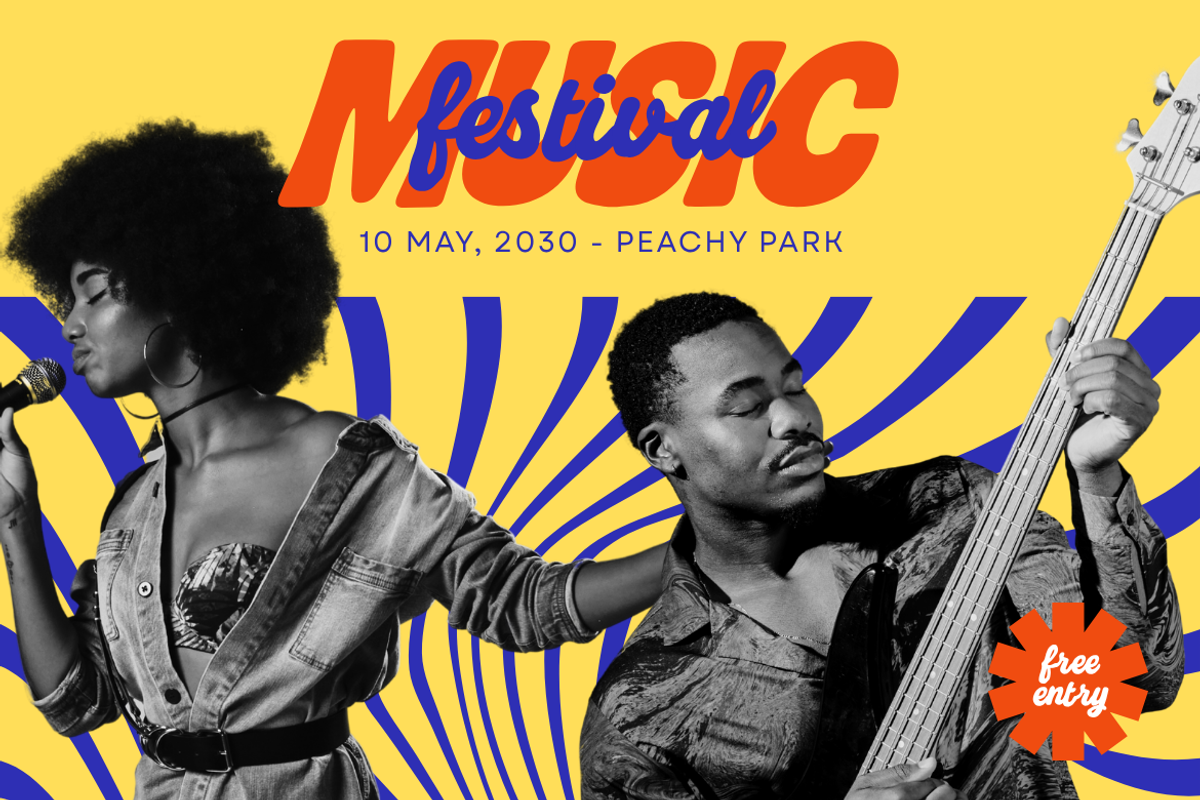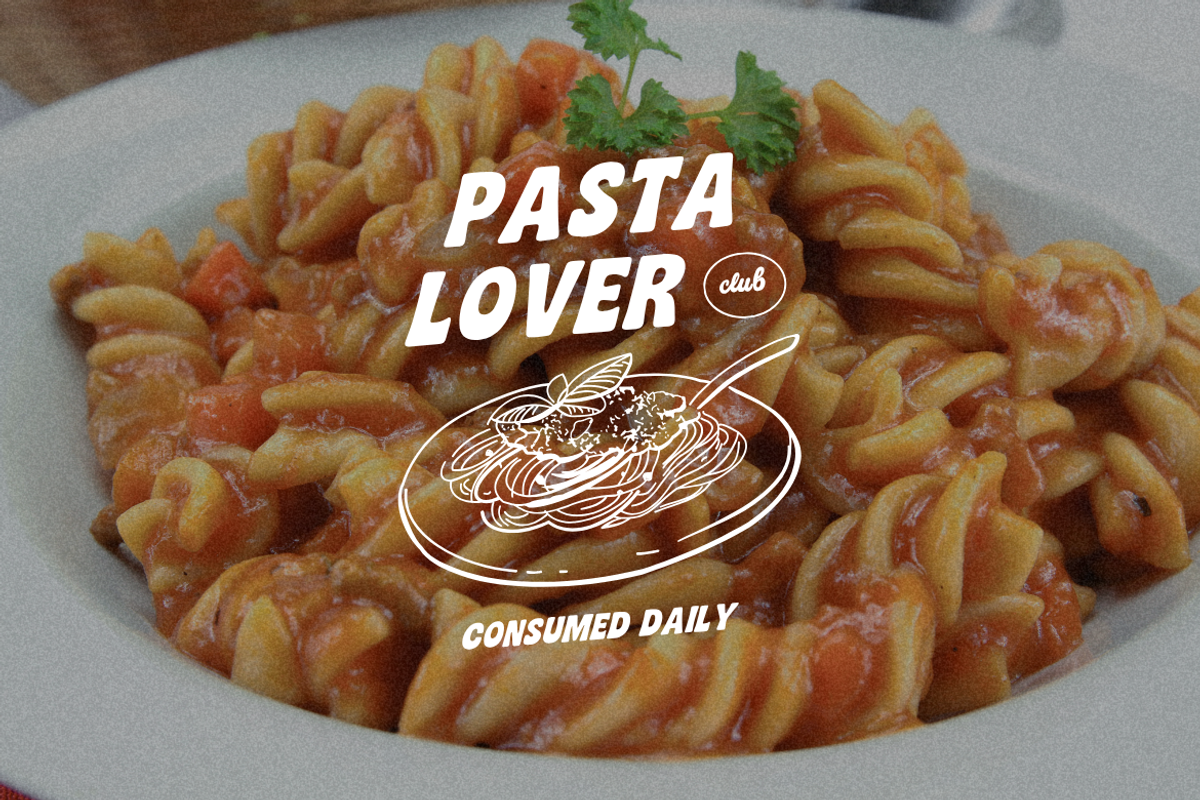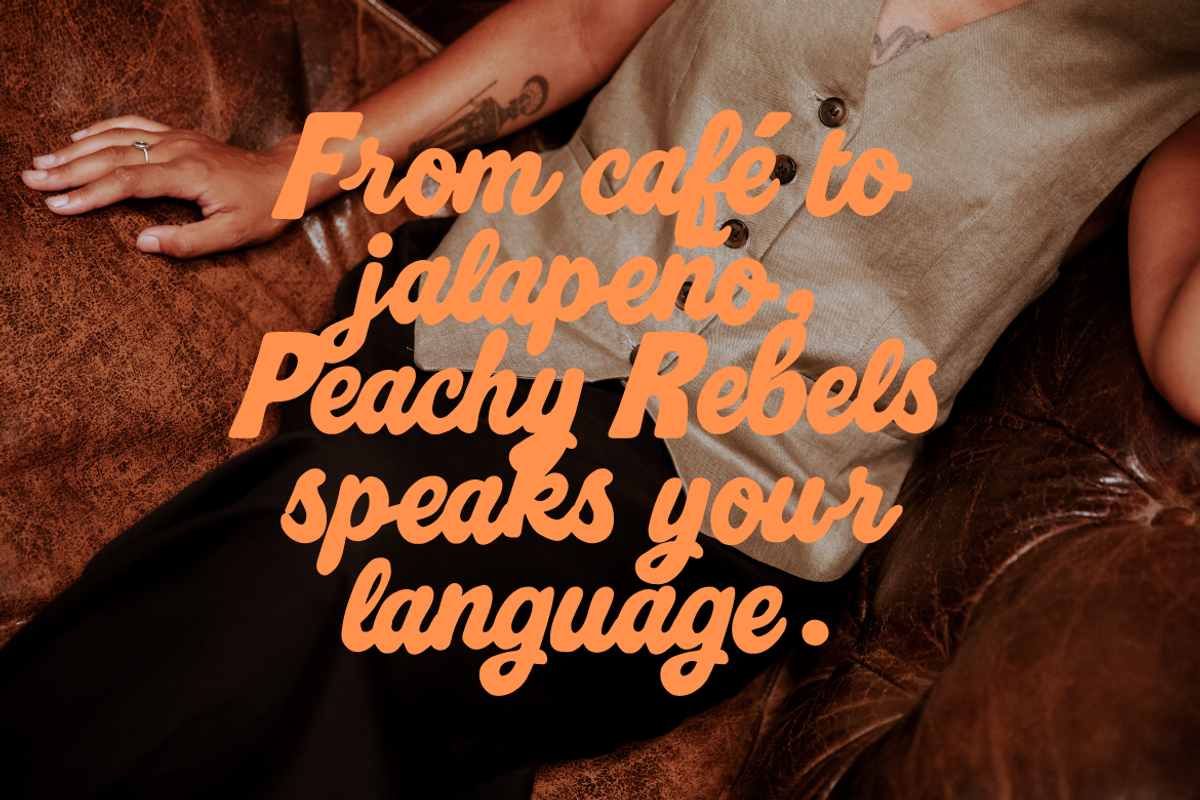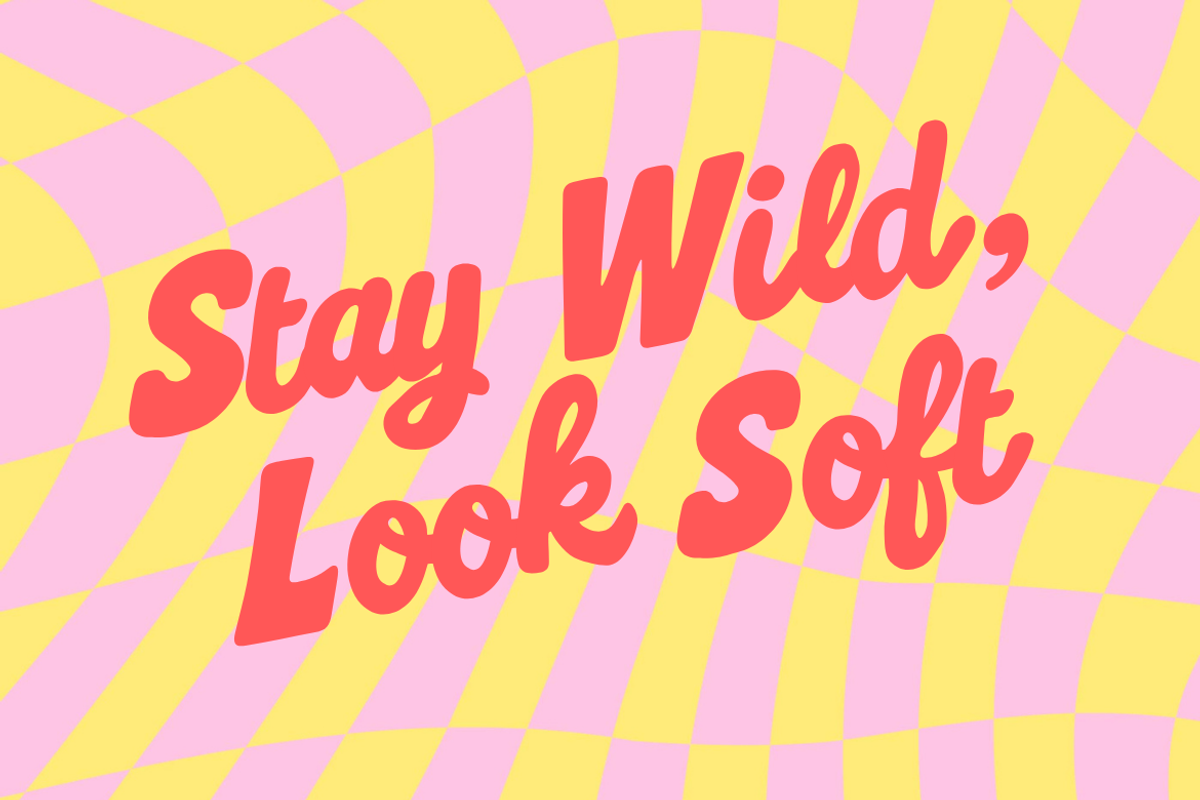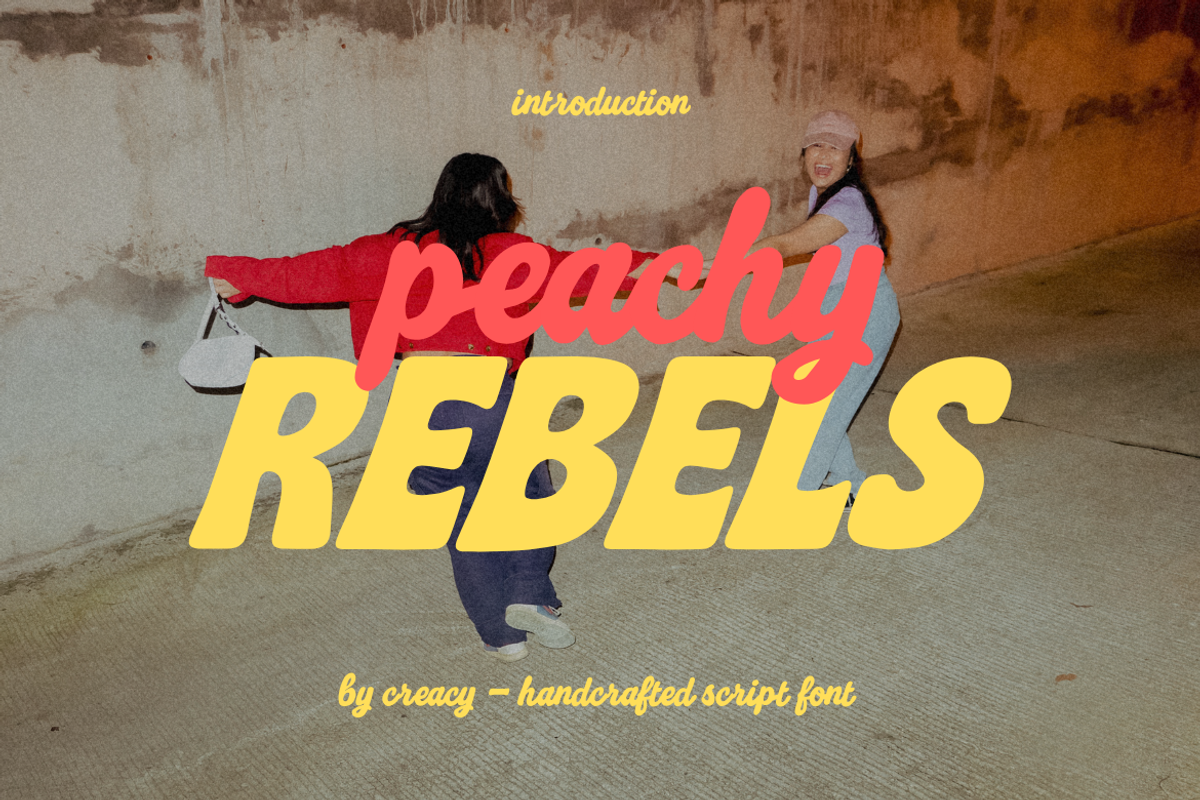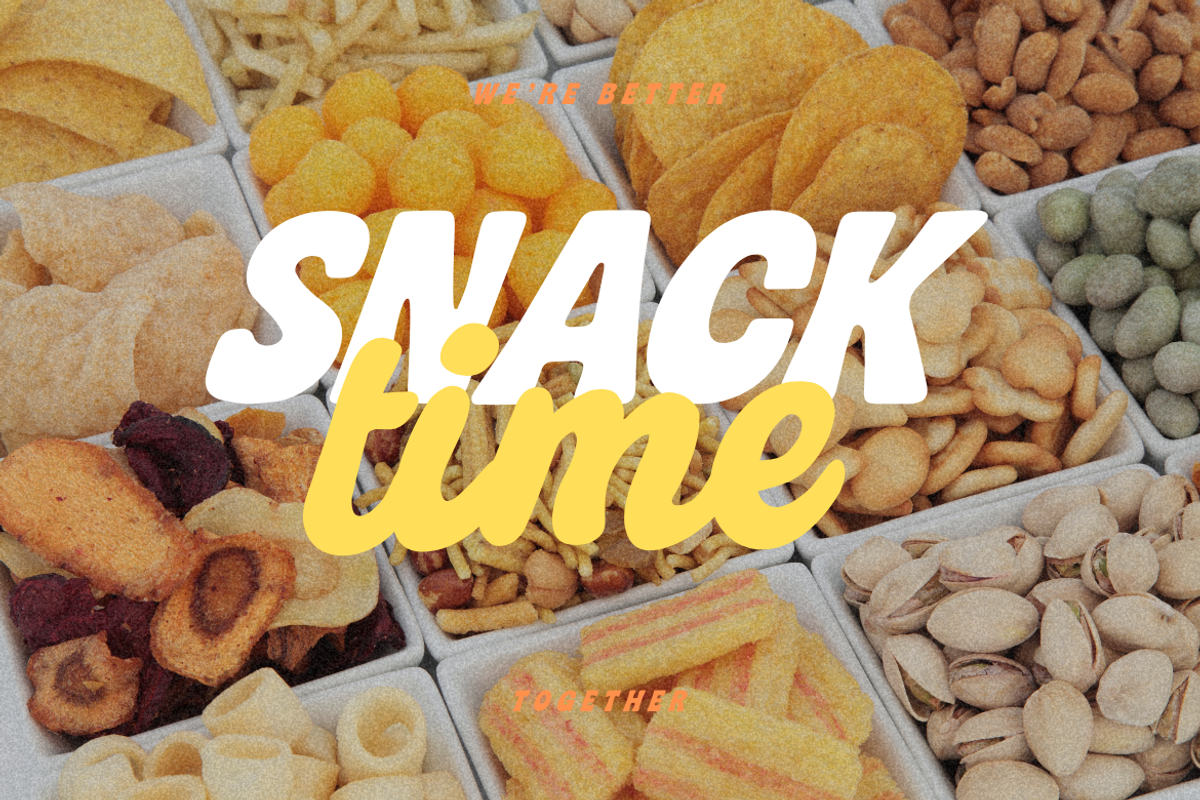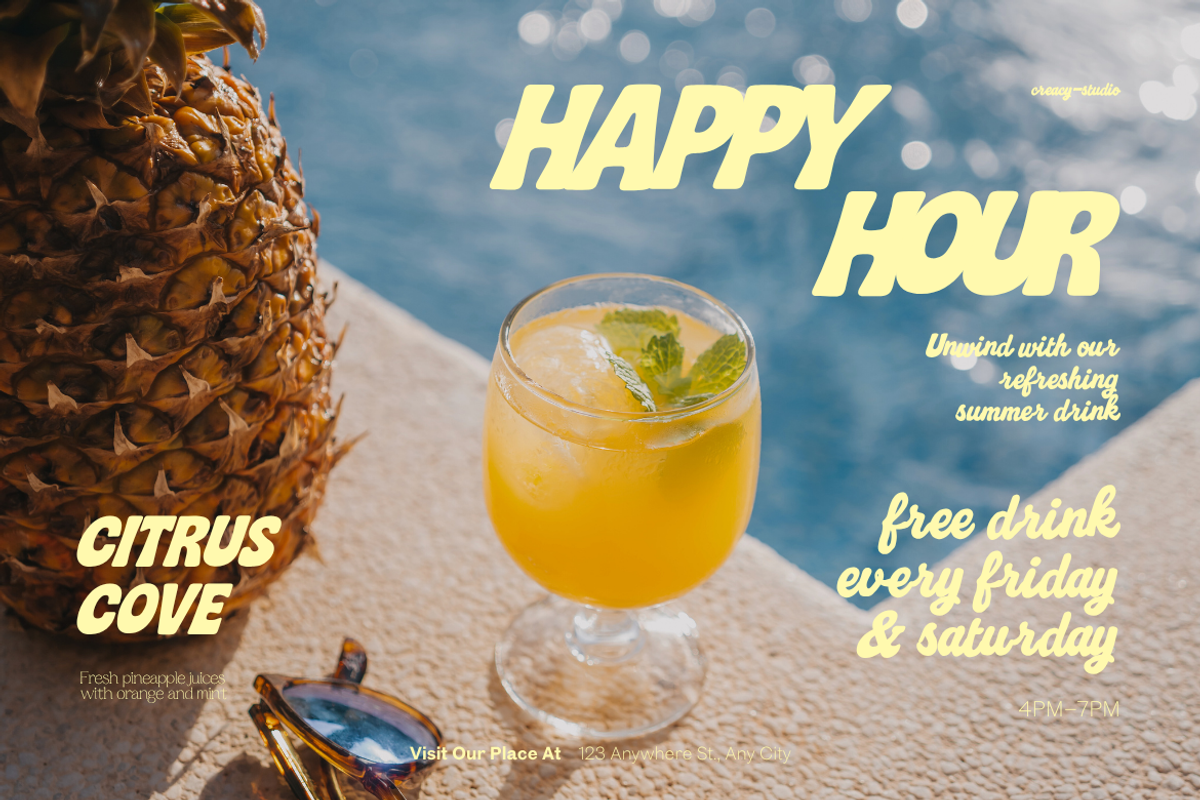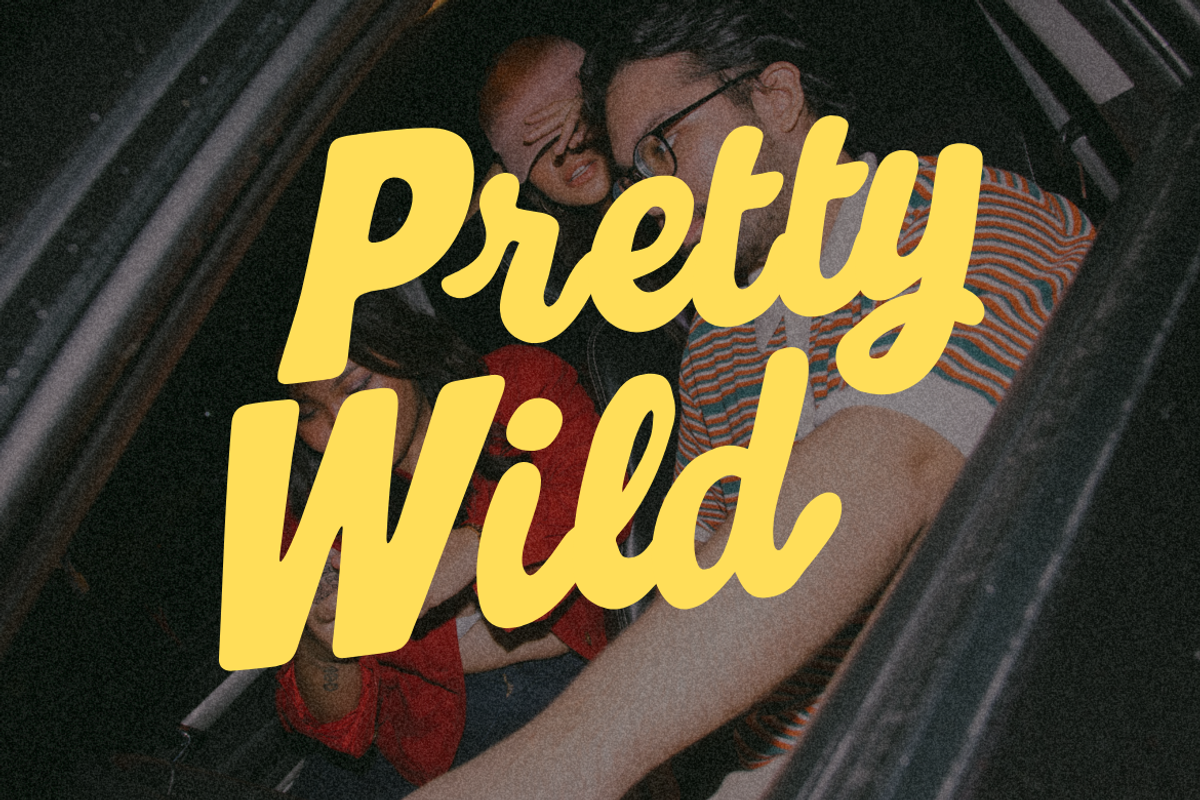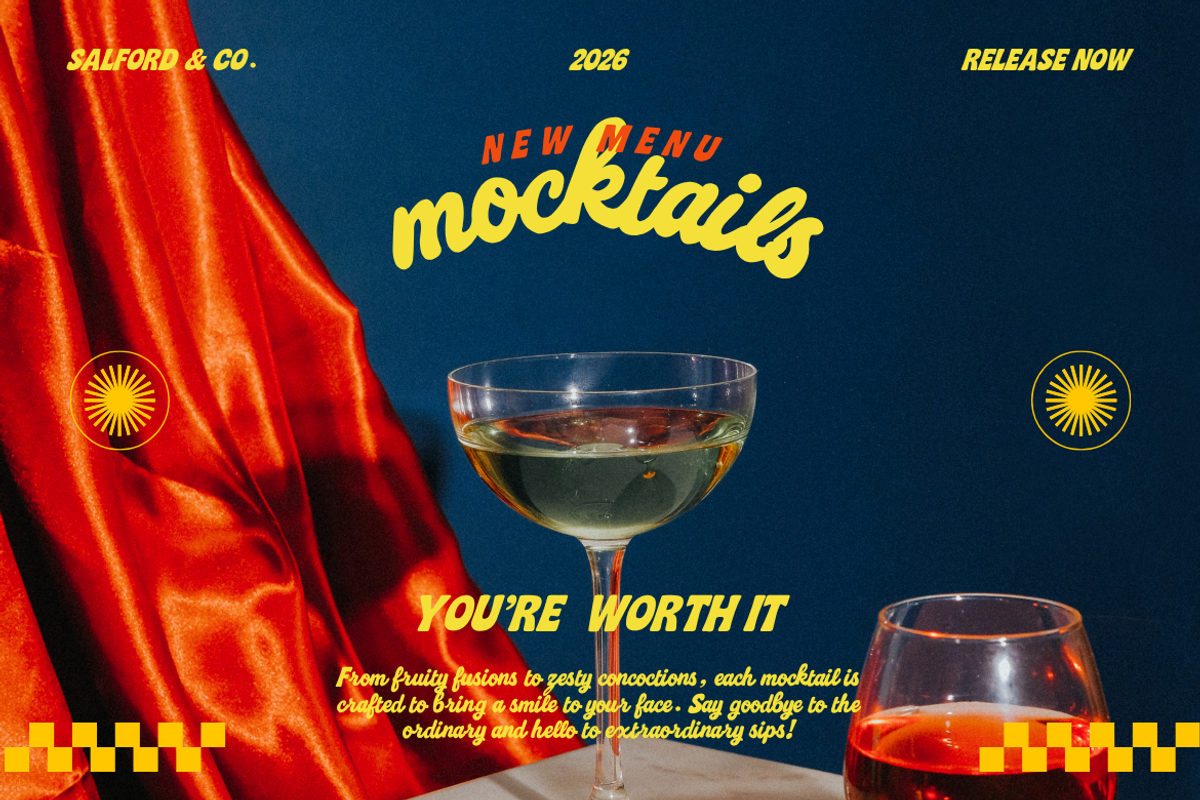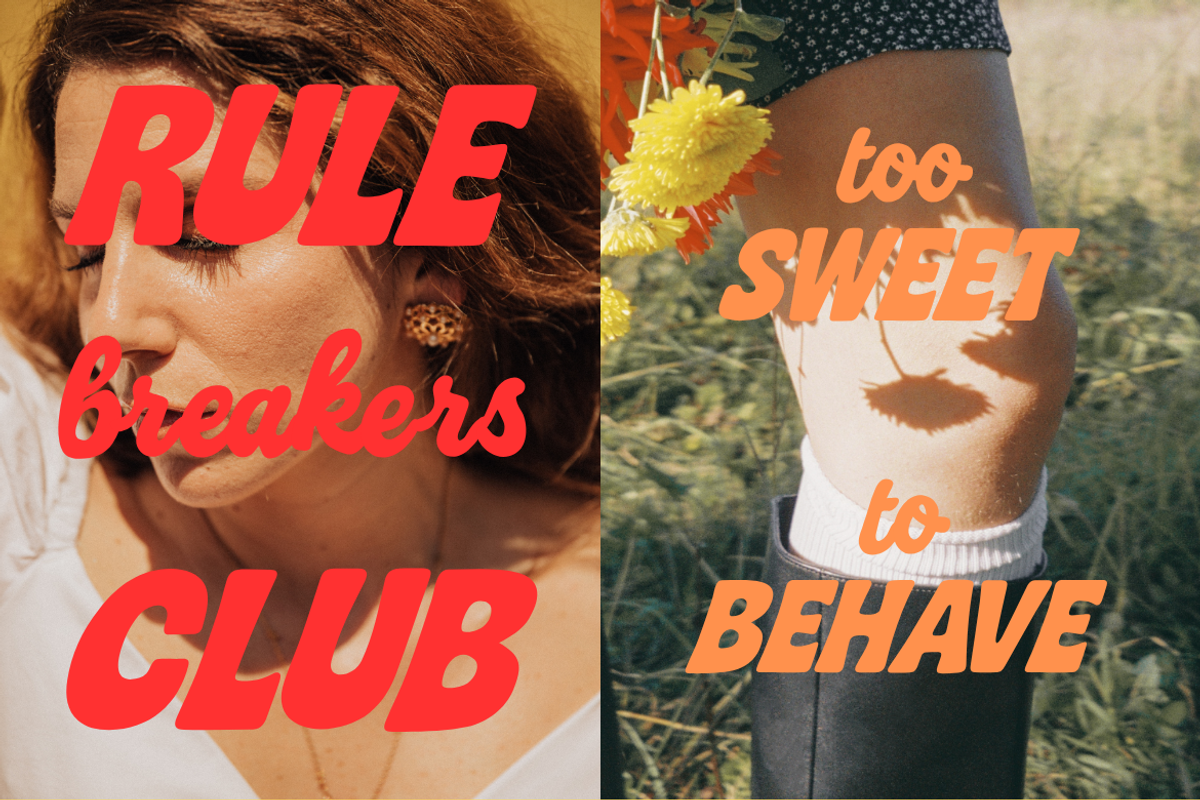
Peachy Rebels - Playful Font
Peachy Rebels is a playful font duo featuring a bold uppercase sans serif and a charming lowercase script. Designed to bring retro personality and carefree vibes to your creative projects, this pair is perfect for bold branding, fun packaging, social media graphics, and anything that needs a little extra attitude and charm.
The uppercase sans is chunky, rounded, and full of vintage flair — ideal for headlines, logos, and punchy titles. Meanwhile, the lowercase script flows with a smooth handwritten rhythm, offering a natural contrast with its sweet, sassy tone.
From retro fashion promos to lifestyle packaging and quirky quotes, Peachy Rebels is made for creators who like their designs bold and bubbly.
✨ Features:
- Uppercase sans serif (A–Z)
- Lowercase script (a–z)
- Numerals & punctuation
- Multilingual support (Latin-based characters)
- Ligatures & alternates (for the script)